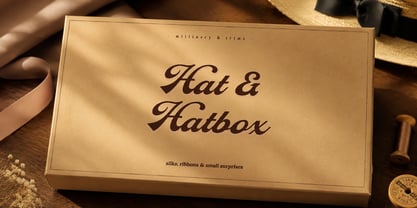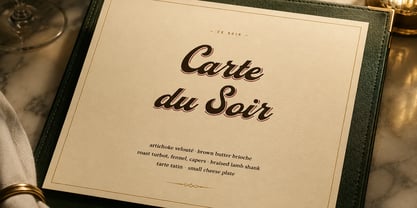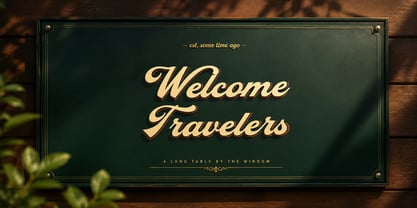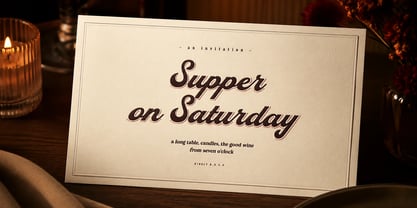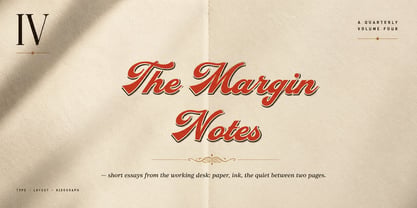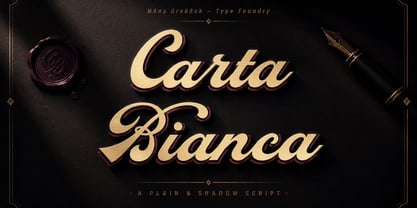
Carta Bianca
by Mans Greback
Carta Bianca is a bold poster script with an inline detail and a confident forward lean.
The strokes lean hard on the downstroke and run thin on the way back up, with a clean inline running through the heavier parts that catches light across the wider letters. Caps loop into the next letter without much pause; the lowercase keeps a steady rhythm beneath the show. The whole design is built for size — it carries a vintage hand-painted weight, the kind of brushwork that used to land on record sleeves, theatre marquees, and grocery-store windows.
Carta Bianca ships as a layered family — Regular, Plain, and Shadow — three matching faces designed to stack. Set the same word in all three using identical size and position; the layers combine into a single typographic logo with depth, drop, and inline highlight. Pair colors freely: a bright Plain over a dark Shadow, or a metallic foil over a deep ground.
Designed and created by Mans Greback.
The font is built with advanced functionality and guaranteed top-notch quality, containing stylistic and contextual alternates, ligatures and more automatic and manual features; all to give you full control and customizability.
It has extensive lingual support, covering all Latin-based languages, from North Europa to South Africa, from America to South-East Asia. It contains all characters and symbols you'll ever need, including all punctuation and numbers.